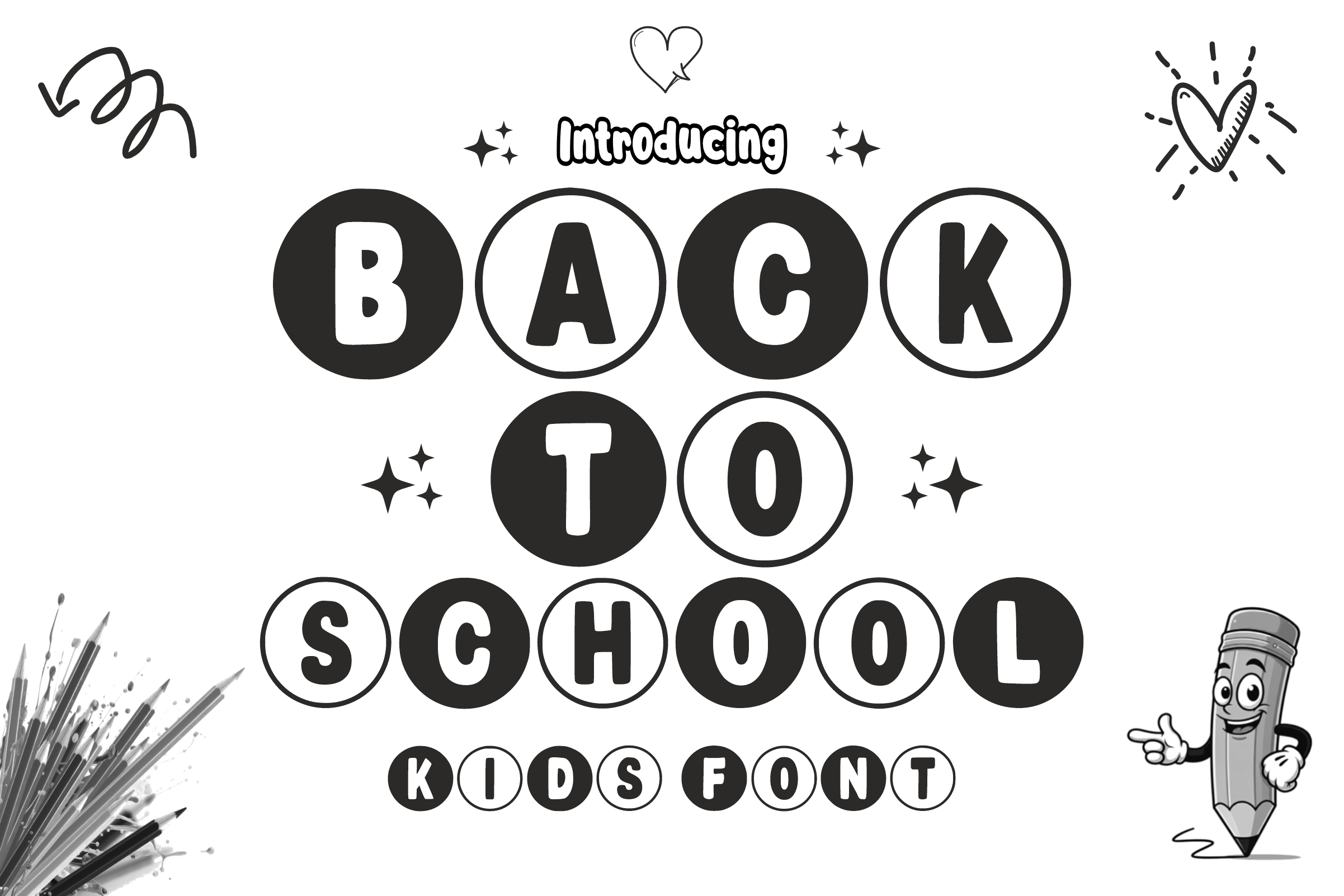
Back To School - Display Font
Back To School - Playful Circle Display Font Make education fun and designs pop with Back To School!
Back To School is a unique, playful display font featuring letters perfectly enclosed in circular badges. This font comes with two distinct styles—Solid Black and Outlined White—allowing you to mix and match to create dynamic, sticker-like effects instantly.
Designed with a youthful and energetic vibe, it’s the ultimate choice for any project related to education, kids' branding, or creative labeling. Whether you are a teacher looking to brighten up your classroom or a designer working on a trendy streetwear brand, this font brings a bold, geometric, and modern touch to your work.
Perfect for: 🍎 School Posters & Classroom Decor
🏷️ Stickers, Badges & Labeling
👕 Kids' Apparel & T-shirt Designs
🎂 Birthday Invitations & Stationery
📚 Workbook Covers & Educational Apps
📱 Fun Social Media Graphics & Branding
Dual Styles: Solid & Outline